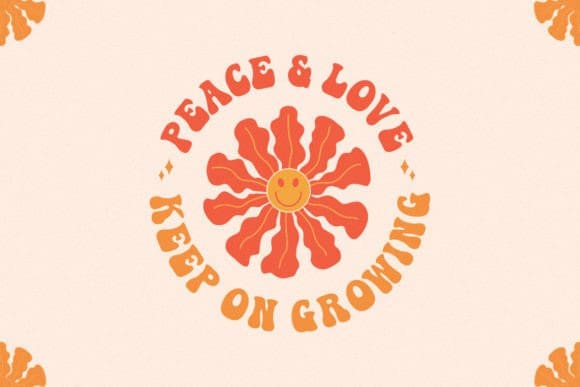
Nowllhouse Display Font
NowllHouse Display Font is a groovy retro font that will bring fun and cheerful vibes. This font feels playfully nostalgic and delivers an incredible groovy aesthetic. Use this great font to add that special touch to any design idea you can think of!